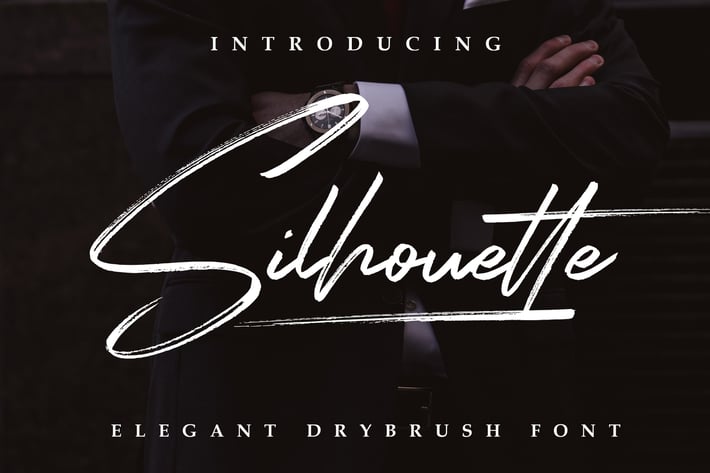
Silhouette Elegant Dry Brush Font
Silhouette is very elegant font. It has multi purpose , specially for you business need like a signature, watermark, business card, and any other elegant designs.